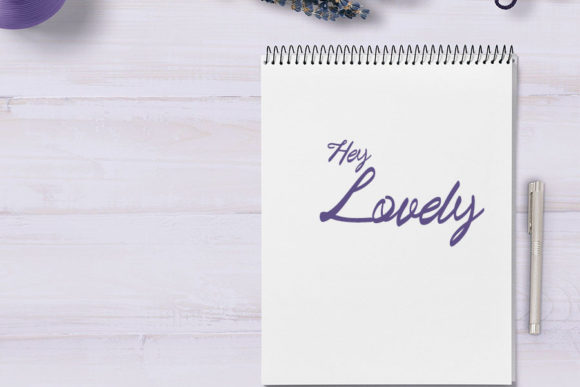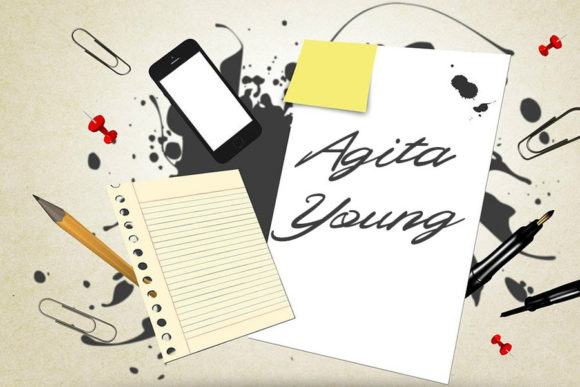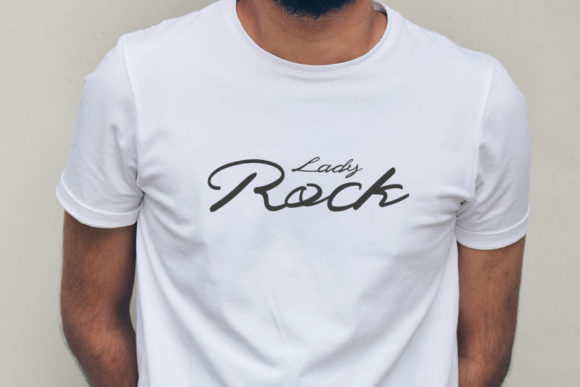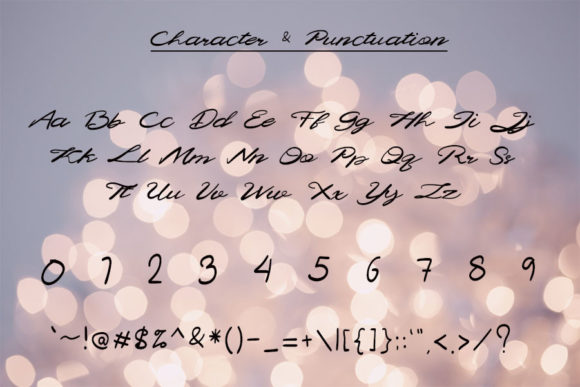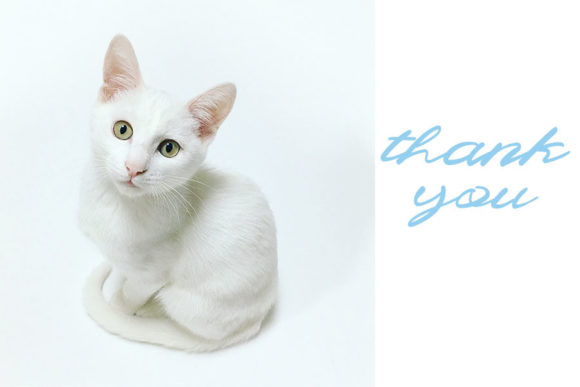
The Perfect Script Font for Your Next Masterpiece
Have you ever been in the middle of a creative project, staring at a blank page, and suddenly, the perfect font idea hits you? That’s exactly what happened to many designers when they discovered the Cecillion Font. This ravishing script font is more than just a pretty face – it’s a game-changer for any design project.
Whether you’re working on a wedding invitation, a brand logo, or a blog post, the Cecillion Font is the perfect addition to your font library. Its unique, hand-crafted details and elegant lines will elevate your design to the next level. With the Cecillion Font, you’ll be able to create stunning, professional-looking designs that are sure to impress.
Cecillion Font Key Features
- Unique Characteristics: This font features elegant, cursive script with intricate details, making it ideal for creative and artistic projects, such as wedding invitations, calligraphy, and hand-lettering.
Cecillion Font Review
I recently had the chance to work with the Cecillion font, and I must say it’s a unique and interesting addition to any design project. Here’s my honest review.
- Beautiful calligraphy-inspired design that adds a touch of elegance to any text
- Great for headings and titles, where a bit of flair is desired
- Good legibility, even at smaller font sizes
- A wide range of language support, making it a great choice for international projects
- Not ideal for body text, as it can be quite dense and tiring to read
- Lack of bold and italic weights, which can make it difficult to create emphasis
- Not suitable for digital displays, as the font’s design can be difficult to read on screens
Overall, I think the Cecillion font is a great choice for specific design projects where a touch of sophistication is desired. However, it’s not a versatile font that can be used in all situations. If you’re looking for a unique font to add some flair to your designs, the Cecillion font is definitely worth considering.
Cecillion Font Practical Application Guide
The Cecillion font is a versatile and elegant script font suitable for a variety of design applications. To get the most out of it, follow these steps:
For best results, use the Cecillion font in conjunction with other elegant script fonts. Common use cases include:
- Product packaging and labeling
- Event signage and banners
Alternatives to Cecillion Font
Lato is a sans-serif font designed by Łukasz Dziedzic. It’s a great alternative to Cecillion Font for body text and titles due to its clean and modern design. Lato is highly legible and works well in digital and print media.
Comparison to Cecillion Font: Lato is more geometric and modern compared to Cecillion Font’s elegant and classic feel. Lato is also more versatile and can be used in a wide range of contexts, from corporate to personal projects.
Montserrat is a sans-serif font designed by Julieta Ulanovsky. It’s a great alternative to Cecillion Font for titles and headings due to its strong and geometric design. Montserrat is highly legible and works well in digital and print media.
Comparison to Cecillion Font: Montserrat is more urban and industrial compared to Cecillion Font’s elegant and classic feel. Montserrat is also more suitable for modern and trendy projects, while Cecillion Font is more suitable for traditional and classic projects.
Q: What is the recommended font size for optimal readability with Cecillion Font?
The recommended font size for optimal readability with Cecillion Font is between 12 and 24 points, depending on the design application, screen resolution, and viewing distance. You may need to adjust the font size based on your specific design requirements and audience.